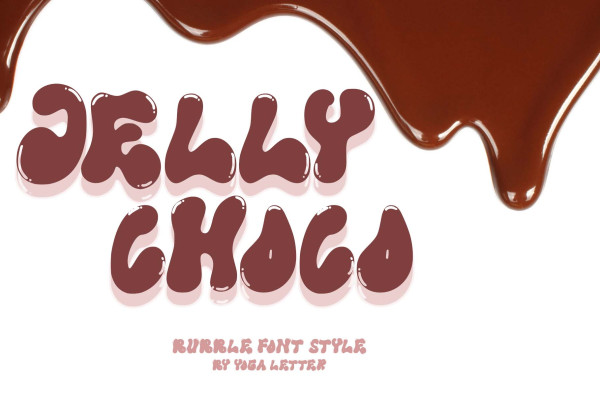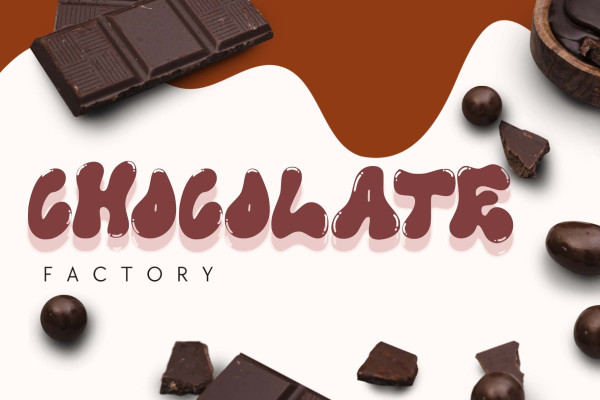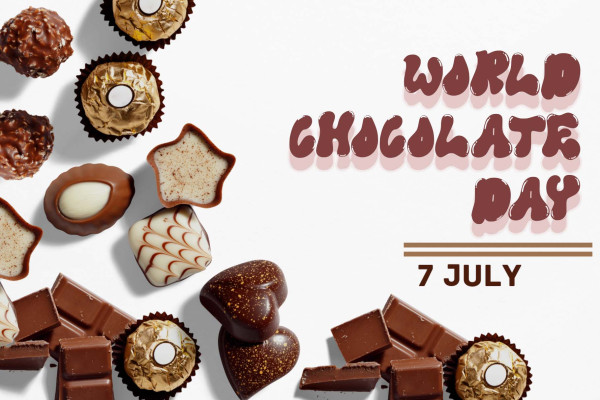
Jelly Choco Font
Jelly Choco Font is a very cute and unique bubble display font. This font is equipped with uppercase, lowercase, multilingual support, numerals and punctuations. This font is very suitable for business branding, banners, posters, stickers, advertisements, product promotions and more.